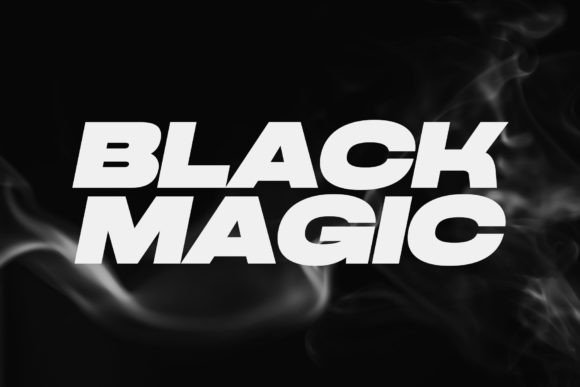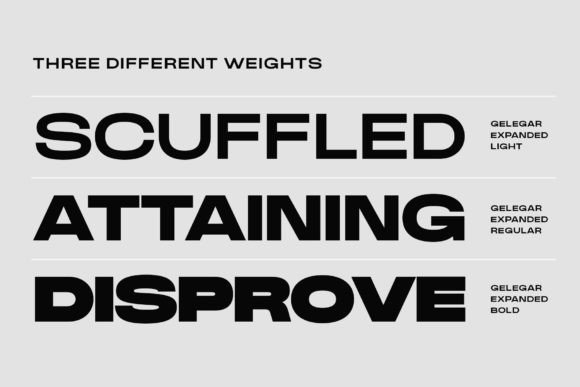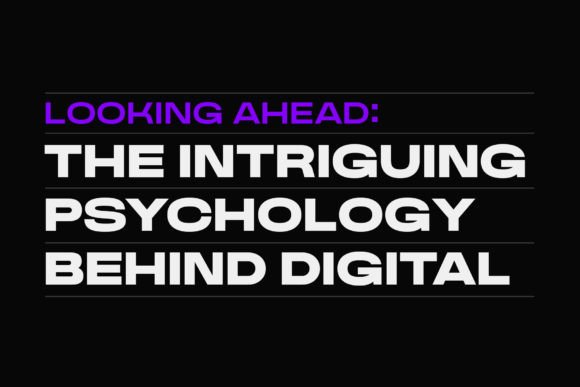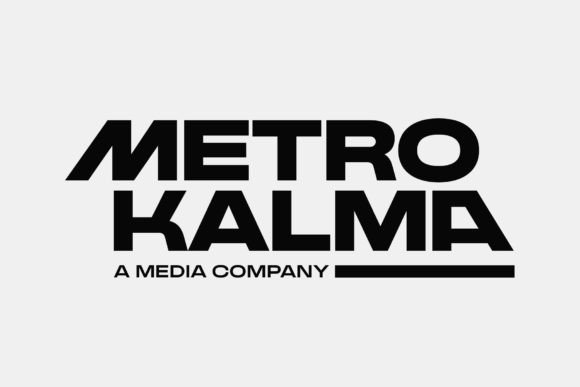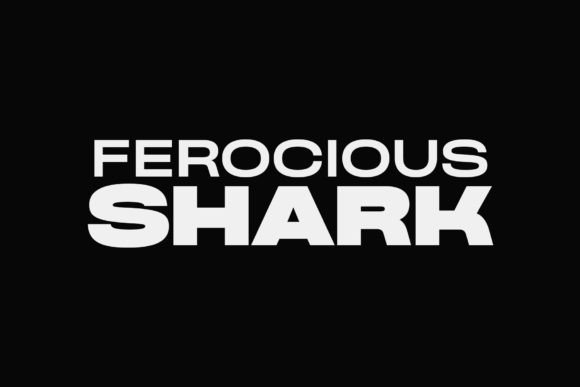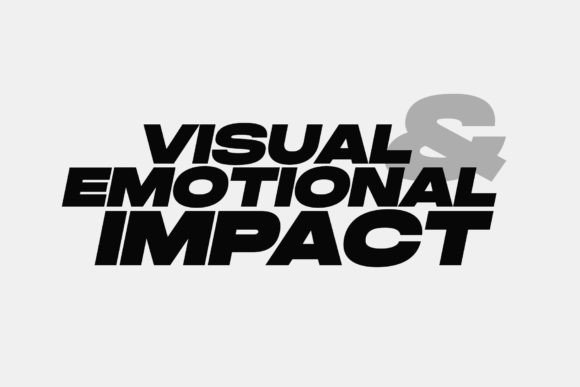
Introducing Gelegar Expanded Font: The Ultimate Ultra-Wide Display Sans Serif
In the world of typography, a font can make or break a design. When it comes to creating visually stunning and emotionally impactful projects, the right font is essential. This is where Gelegar Expanded comes in – an extraordinary ultra-wide display sans serif font designed to take your designs to the next level. In this article, we’ll dive into the features and benefits of Gelegar Expanded, and explore how it can elevate your design game.
What is Gelegar Expanded?
Gelegar Expanded is a meticulously crafted font, specifically designed for commanding visual and emotional impact. Its ultra-wide display sans serif style makes it perfect for a variety of applications, from posters and social media posts to attention-grabbing headlines, monumental titling, and large-format prints. With Gelegar Expanded, you can ensure your projects stand out from the crowd and leave a lasting impression on your audience.
Key Features of Gelegar Expanded
- Ultra-wide display sans serif style: Gelegar Expanded boasts an expansive and sleek design, making it perfect for headlines, titles, and large-format prints.
- Meticulously crafted for visual impact: Every detail of Gelegar Expanded has been carefully considered to create a font that commands attention and evokes emotion.
- Versatile and adaptable: Whether you’re designing for print or digital, Gelegar Expanded can be used across a range of mediums and applications.
- Easy to read and understand: Despite its ultra-wide style, Gelegar Expanded remains clear and legible, ensuring your message is conveyed with ease.
Applications of Gelegar Expanded
Gelegar Expanded is an incredibly versatile font, suitable for a wide range of design applications. Here are some of the ways you can use Gelegar Expanded to elevate your designs:
- Posters and flyers: Create eye-catching posters and flyers that grab attention and communicate your message with clarity.
- Social media posts: Stand out on social media with Gelegar Expanded’s ultra-wide style, perfect for attention-grabbing headlines and titles.
- Headlines and titles: Use Gelegar Expanded to create bold and impactful headlines and titles that set the tone for your design.
- Monumental titling: Gelegar Expanded is perfect for large-format prints and monumental titling, making it ideal for exhibitions, events, and installations.
Benefits of Using Gelegar Expanded
So why choose Gelegar Expanded for your design projects? Here are just some of the benefits you can expect:
- Increased visual impact: Gelegar Expanded’s ultra-wide style and meticulous craftsmanship ensure your designs command attention and evoke emotion.
- Improved legibility: Despite its expansive style, Gelegar Expanded remains clear and easy to read, ensuring your message is conveyed with ease.
- Enhanced creativity: With Gelegar Expanded, you can experiment with bold and innovative designs that push the boundaries of typography.
- Time-saving: Gelegar Expanded’s versatility and adaptability save you time and effort, as you can use it across a range of mediums and applications.
| Font Name | Gelegar Expanded Font |
| Author | locomotype |
In conclusion, Gelegar Expanded is an extraordinary ultra-wide display sans serif font that can elevate your design game. With its meticulous craftsmanship, versatility, and adaptability, Gelegar Expanded is perfect for designers and crafters looking to create visually stunning and emotionally impactful projects. Whether you’re designing posters, social media posts, attention-grabbing headlines, monumental titling, or large-format prints, Gelegar Expanded ensures your projects stand out from the crowd. So why wait? Try Gelegar Expanded today and experience the power of exceptional typography.